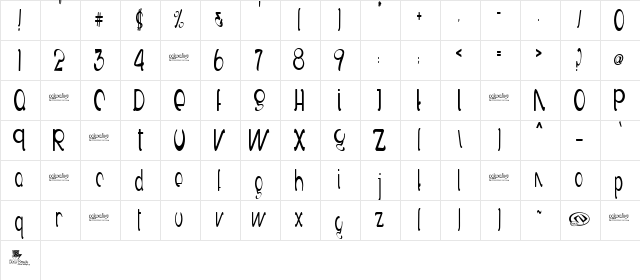
Complete Galaxative tower Regular glyph index. Displaying only characters natively supported by Galaxative tower Regular font.
Galaxative tower is a composed and adaptable typeface that performs quietly and consistently across a wide range of design contexts.